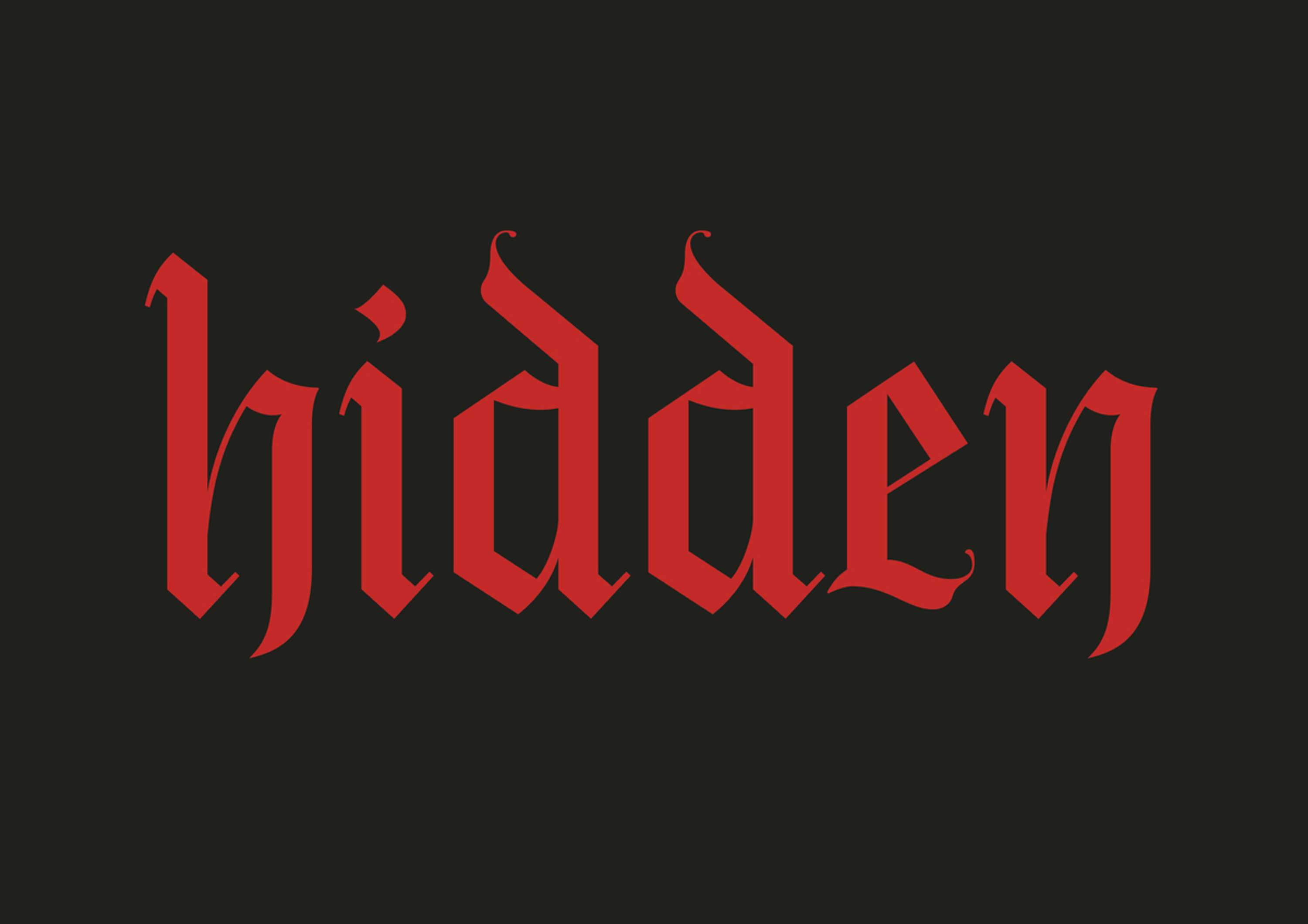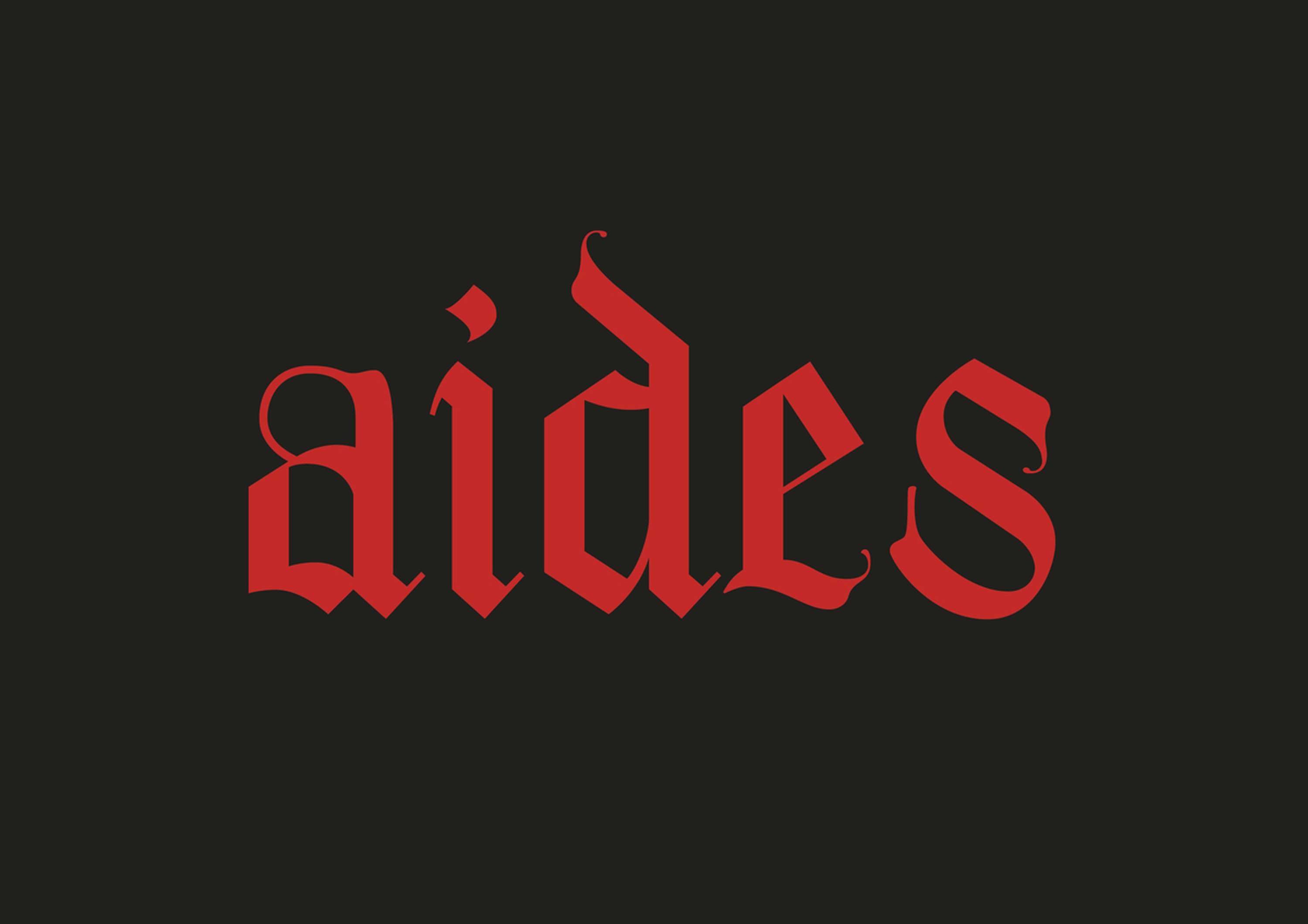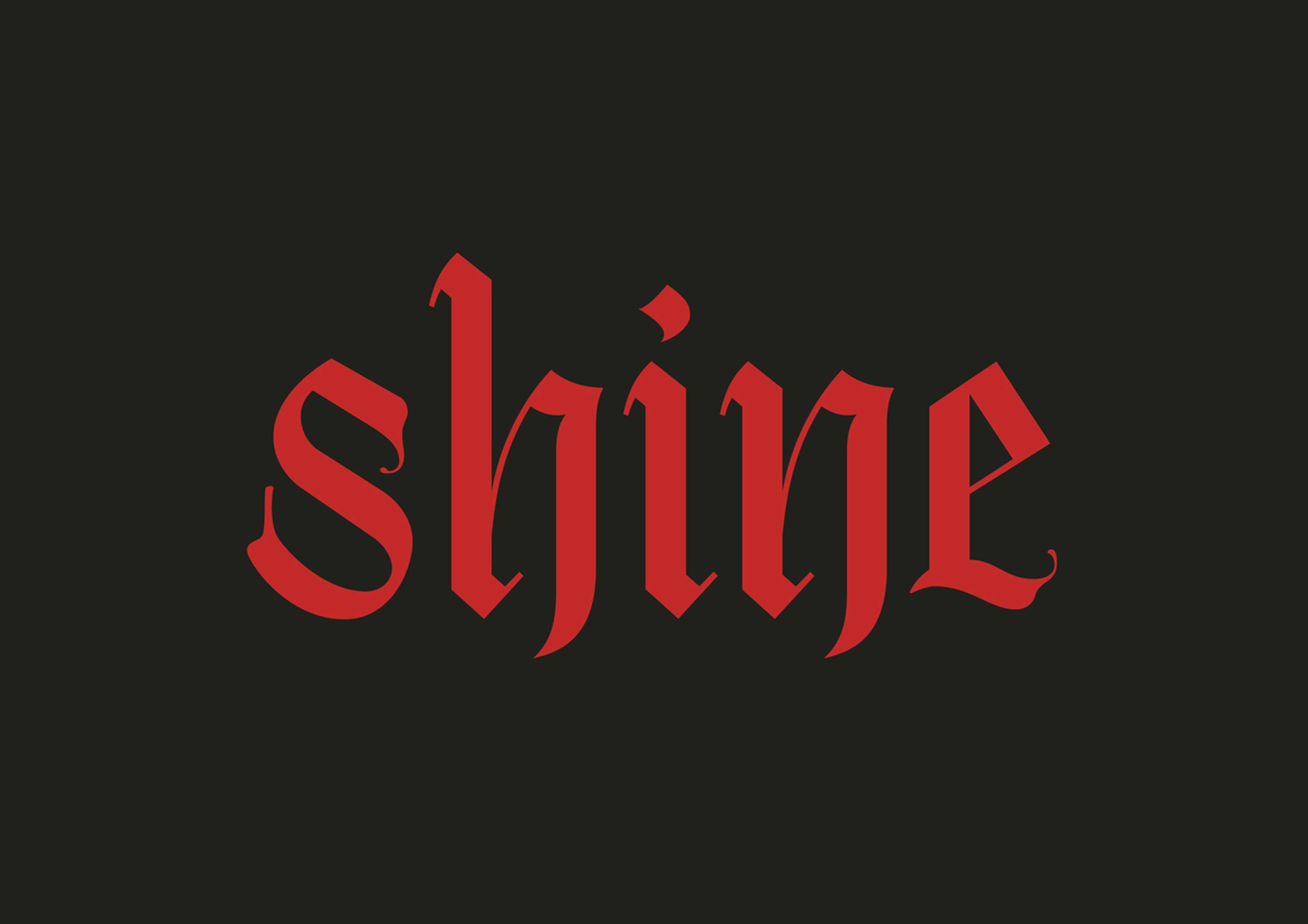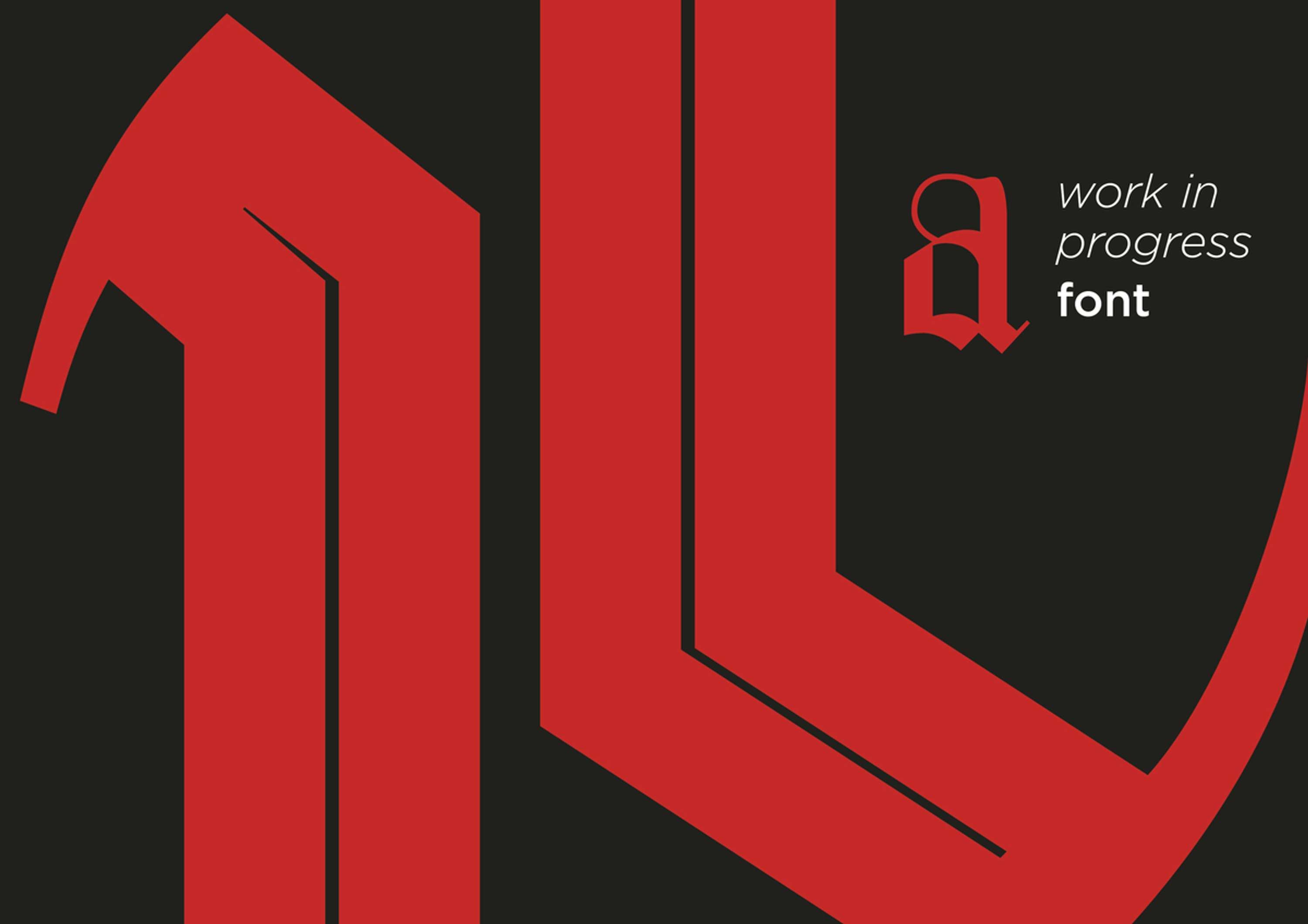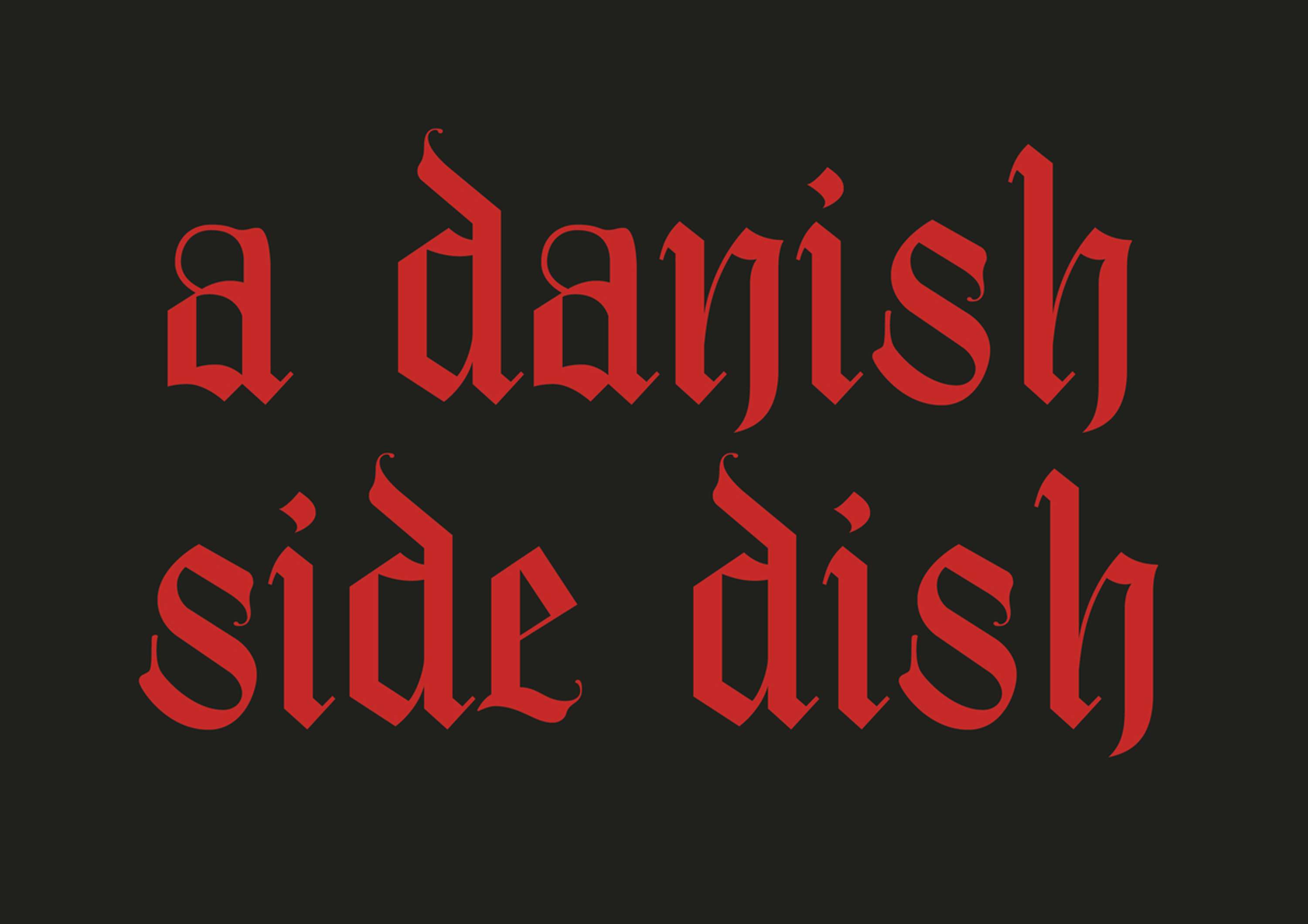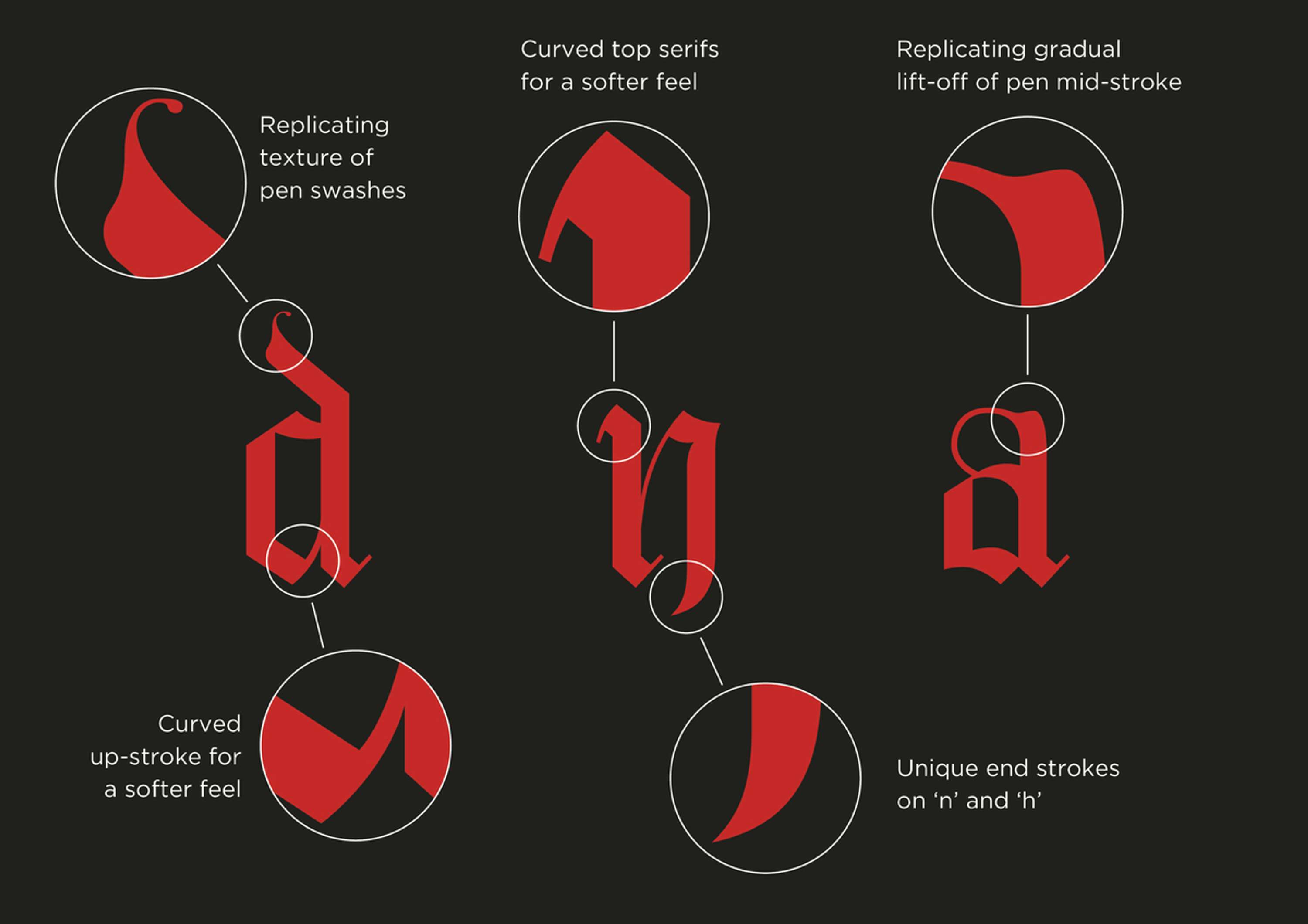
Blackletter Font - WIP
This is a personal project that is still very much a work in progress, as I have only digitised 7 characters so far. The typeface is inspired by blackletter calligraphy, and each letterform is closely modelled on my own calligraphy style. I have tried to retain an element of the qualities of a nib on paper, whilst keeping each letter-shape clean and simple, treading a thin line between modern blackletter and a 'textured' font.